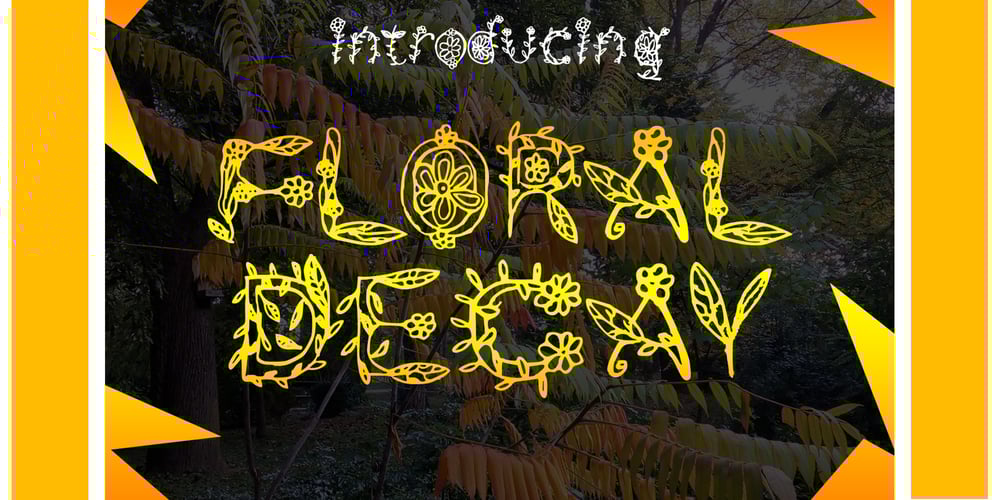
Floral Decay Font Family was designed by Mircea Boboc and published by Mircea Boboc. Floral Decay contains 1 styles and family package options. This is Floral Decay, your seasonal autumn font with jaded, weathered, and earthy contours of rustic lettering. As they blend into words, the characters evoke floral arrangements of a decaying beauty. It is versatile, playful, and perfect for Graphic Design decorations!This font is unique because, in order to create it, I had to answer some tricky questions:What makes autumn… autumn? Capturing the essence of the other seasons into your letters comes easier. For instance, in order to suggest summer, you only need to draw a few flowers. How about autumn? You could garnish your letters with a few grapes, you might think, but it would only result in a grape-themed font.The notion that is more directly associated with autumn is the image of falling and withering leaves, which brought me to the second question.How exactly are you going to create something beautiful out of a somewhat morbid premise, like wilted leaves?Well, I soon realized that by creating a handwritten font and preserving the right imperfections, you can actually portray collateral beauty. In this context, asymmetry is important because it suggests decay. Further on, the design concept required the letters to come very close together, so that every typed word can be regarded as a floral arrangement. How close together, though? As much as possible without confusing one with the other, risking a lack of legibility. Therefore, in contrast with the demo version of this font, this actual version provides the ideal kerning.